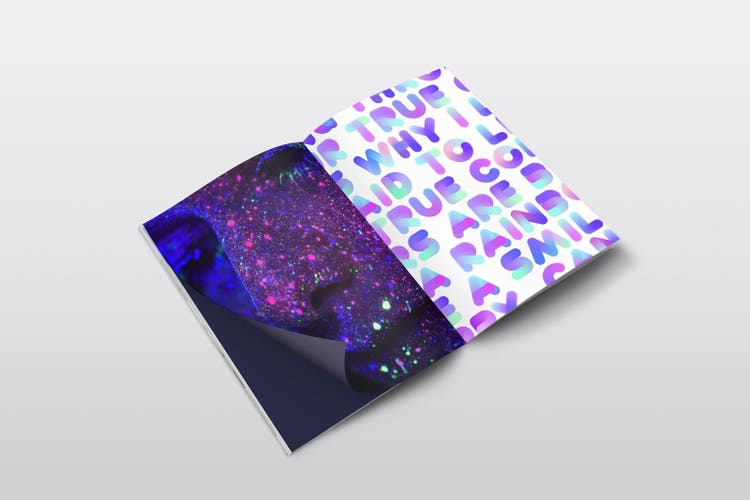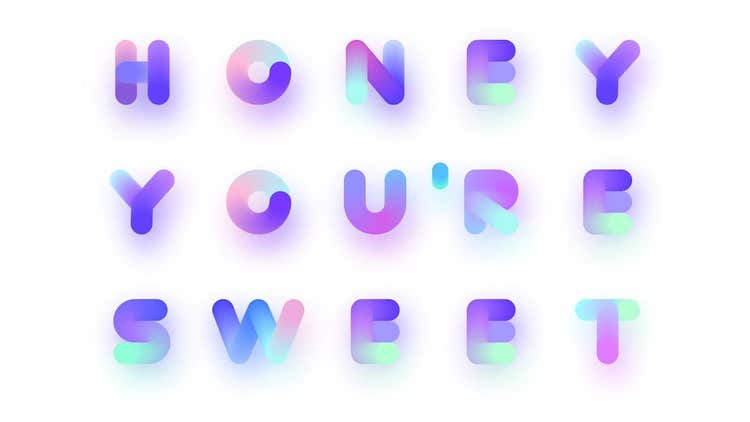
Abelone, as the name suggests, is inspired by the gorgeous iridescence of the marine mollusk Abalone shell. Maria wanted to make the letters very wide to create as much area as possible for the color blending to show through between purple and turquoise. Each character is made from approximately 100 colorful blended circles.
Maria’s OpenType-SVG color font was Made with Fontself Maker. “It was truly astounding how easy [Fontself] was to use,” Maria says. With Fontself, the design of Color Fonts is now within reach for anyone to create their own font. Not only does it make font design more accessible, but as Maria says, its flexibility inspires creativity. A design can create multiple colored glyphs in Fontself Maker that can contain up to 1,000 vector points. Maria’s designs take full advantage of the capability. Most of the glyphs in the Abelone font contain more than 100 color tones.